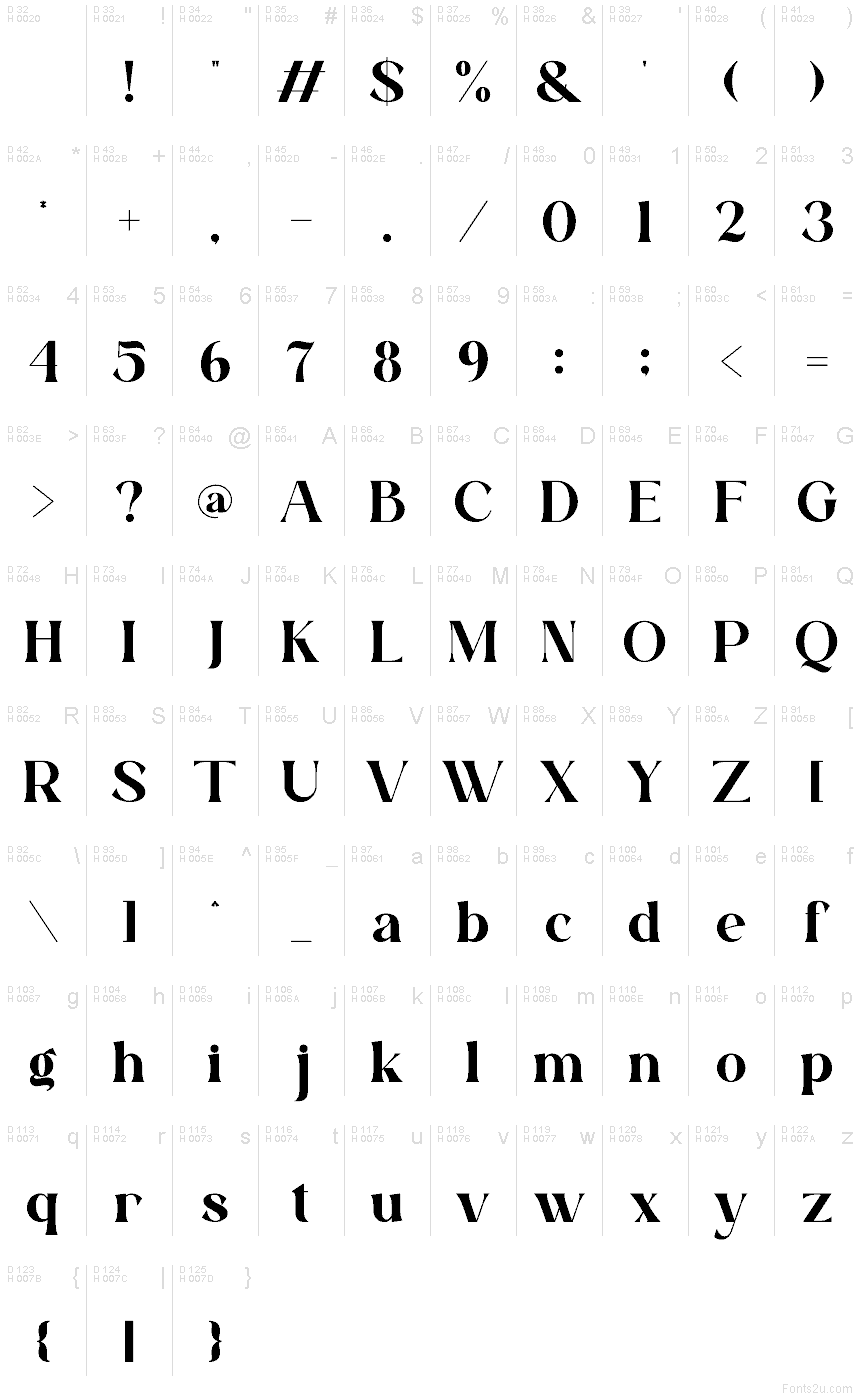
Vanniel
Vanniel by Ermedia Studio is a free serif display font. It stands out with sculpted wedge serifs, razor-thin hairlines, and generous curves that swell into inky, black shapes. The rhythm feels editorial yet dramatic—tight joins, confident verticals, and a slash of contrast that makes headlines snap without looking brittle.
Using Vanniel, you’ll add polished drama to luxury branding, magazine covers, beauty packaging, posters, event invitations, and striking editorial titles. This free font shines at large sizes where its sharp cuts and velvety blacks can breathe; pair it with a quiet geometric sans for body copy to keep layouts crisp and balanced.